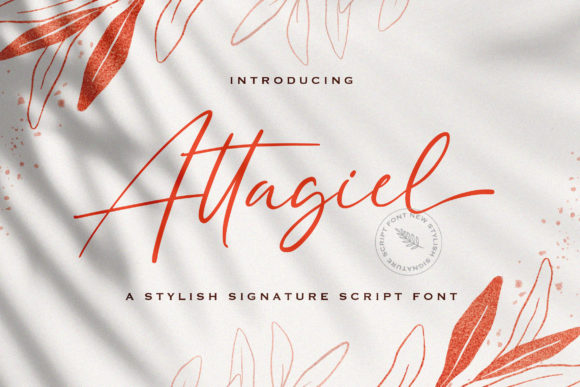
The Elegant Attagiel Font: A Designer’s New Best Friend
I still remember the last time I was working on a project, pouring my heart and soul into it, but something just wasn’t quite right. The design looked good on paper, but it was missing that special something to make it pop. And then it hit me – the font. I was using a generic, overused sans-serif font that just wasn’t cutting it. I needed something elegant, something delicate, something that would make my design come alive. That’s when I stumbled upon the Attagiel font, and let me tell you, it’s been a game-changer ever since.
So, what makes Attagiel so special? Here are a few things I absolutely love about this font:
- ✨ Elegant and flowing handwritten style: Attagiel has a beautiful, cursive feel to it that’s perfect for designs that need a touch of sophistication.
- ✅ Well-balanced characters: Each letter is carefully crafted to ensure that the font looks great on its own and in combination with other characters.
- 💫 PUA encoded for easy access to glyphs and swashes: This font is designed to make it easy to add flourishes and extra details to your designs.
- ⚠️ Limited use on smaller font sizes: Attagiel is designed to shine at larger font sizes, so be sure to test it out at different sizes to ensure it works for your design.
- 🤔 Some characters may require manual kerning: While the font is generally well-balanced, you may need to adjust the kerning on certain character combinations to get the best results.
The Story Behind Attagiel
Attagiel was designed with the intention of creating a beautiful, elegant font that would be perfect for a wide range of design projects. The designer wanted to create a font that would evoke a sense of whimsy and charm, while still being sophisticated and elegant. The result is a font that’s perfect for designers, crafters, and creative hobbyists who need a touch of elegance in their designs.
- Q: Is Attagiel suitable for body text?
- A: While Attagiel is beautiful, it’s primarily designed for display text. For body text, you might want to choose a font that’s easier to read.